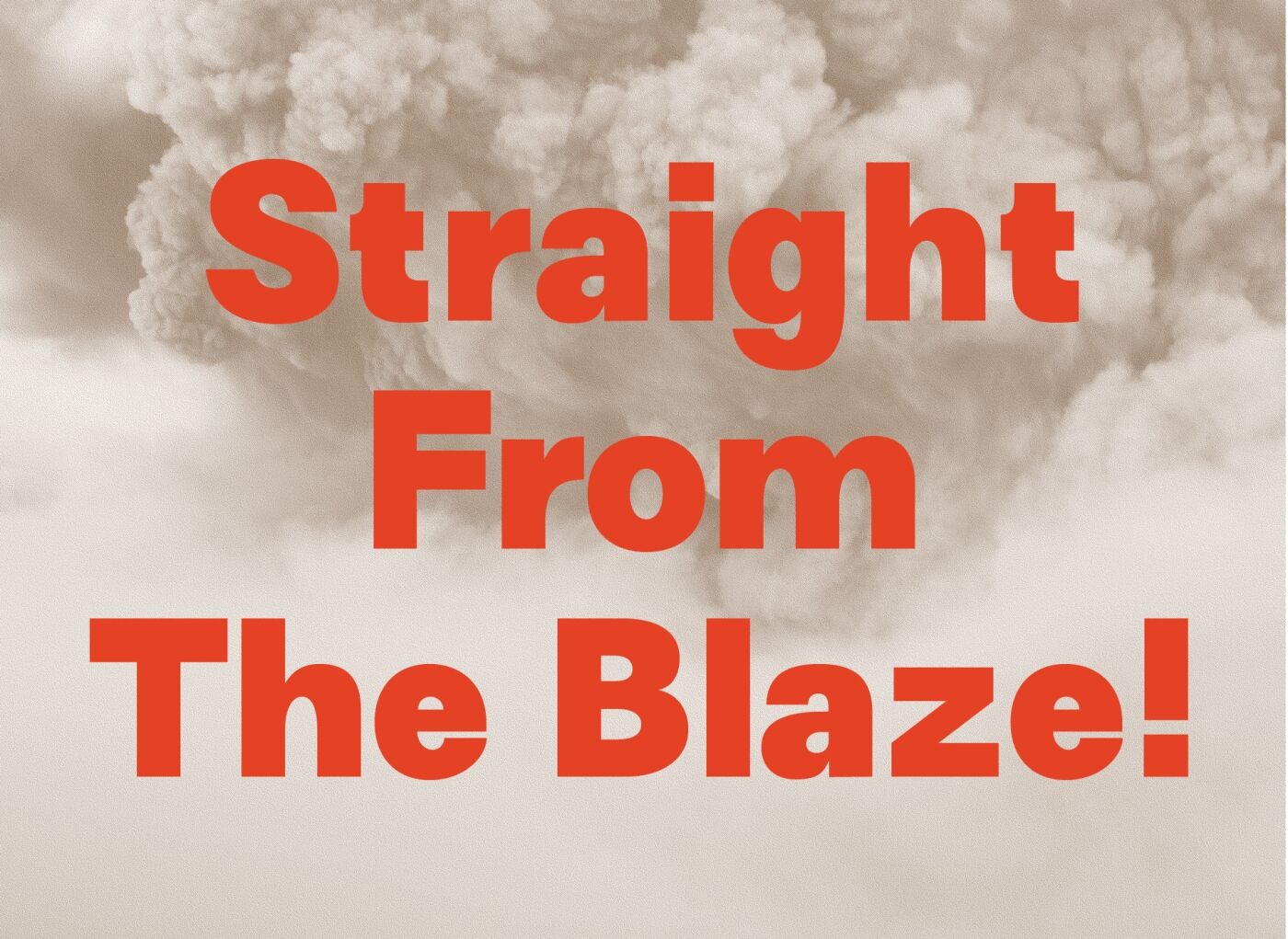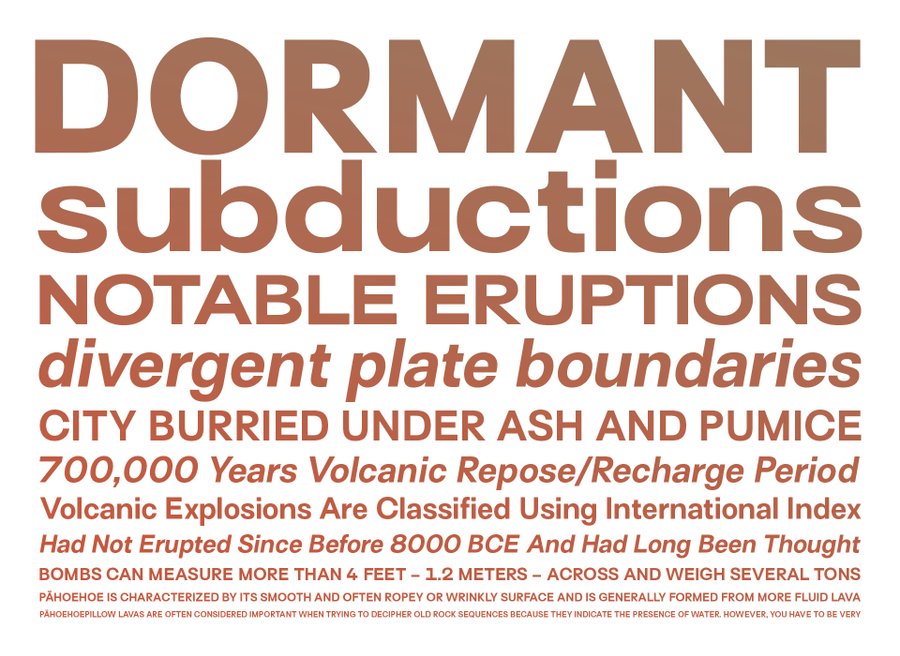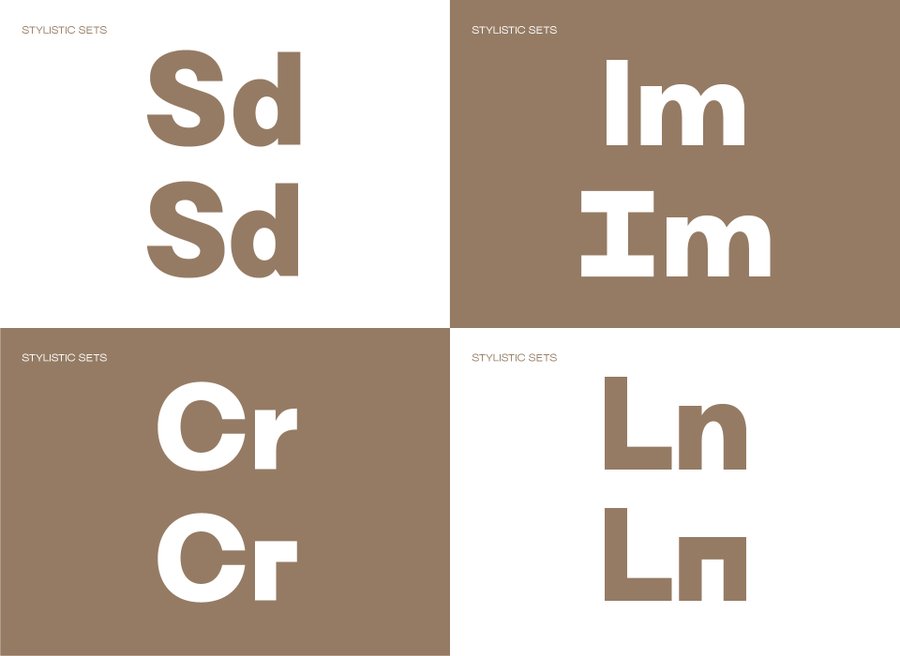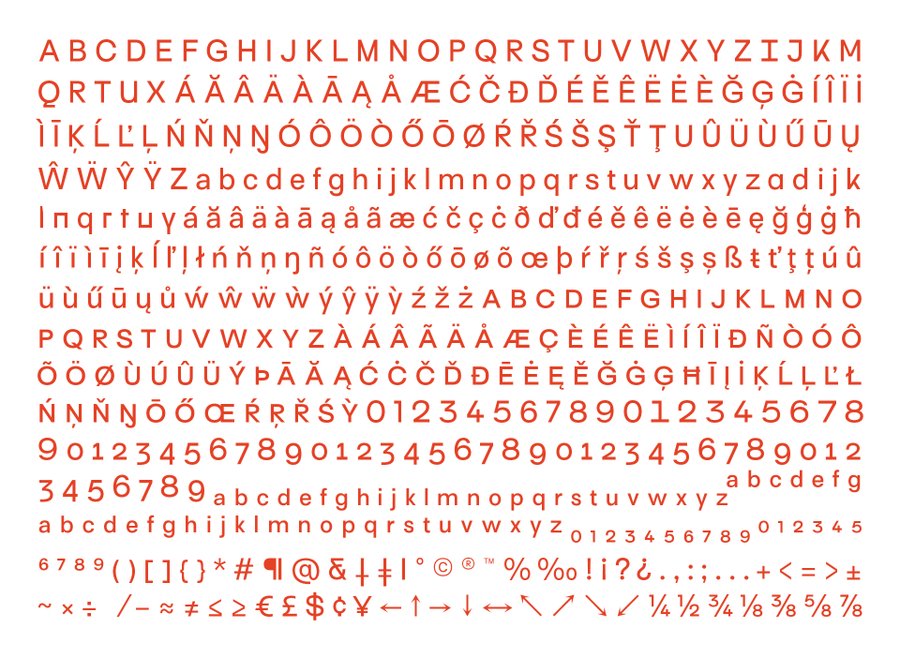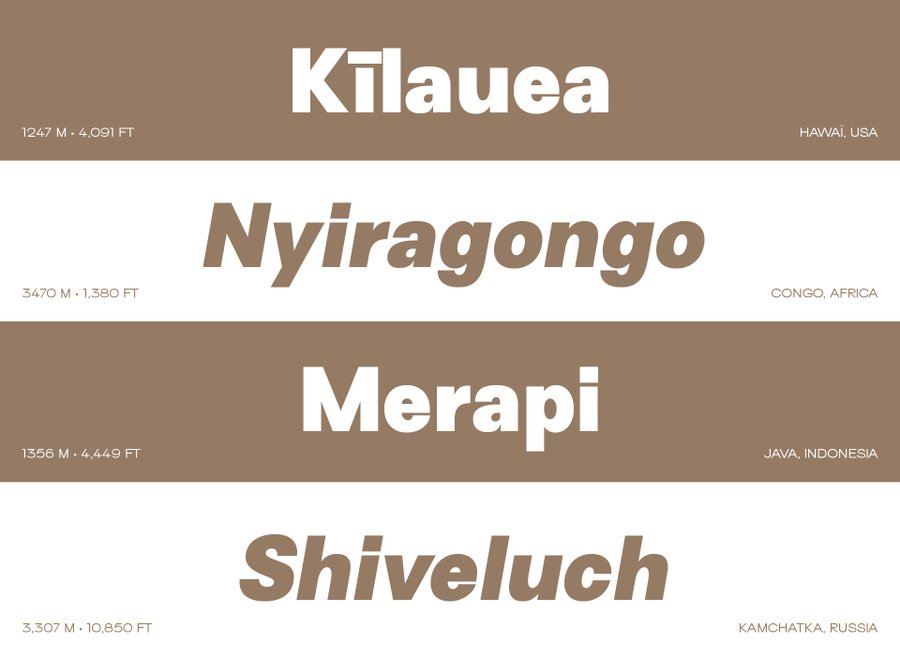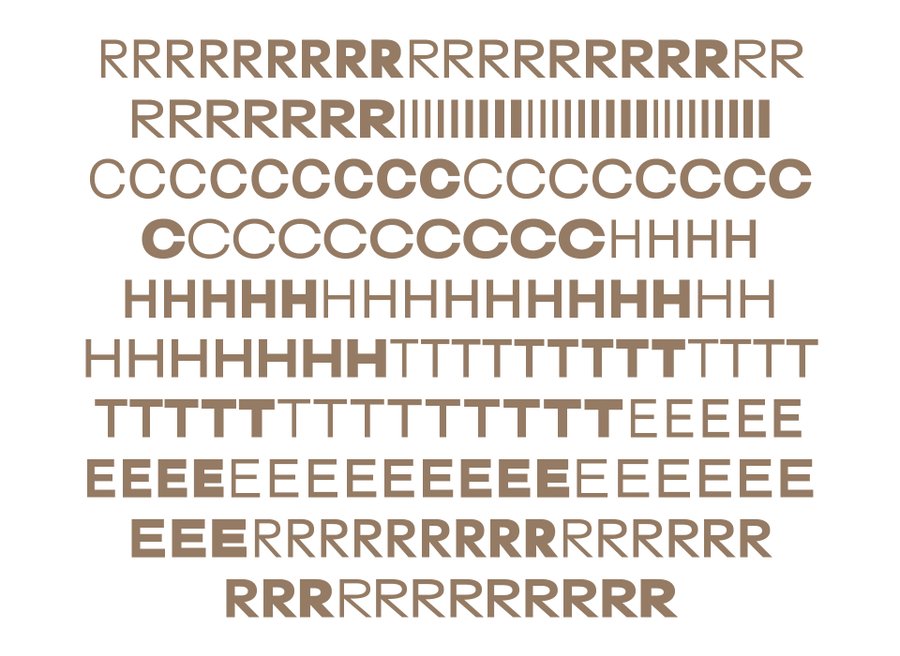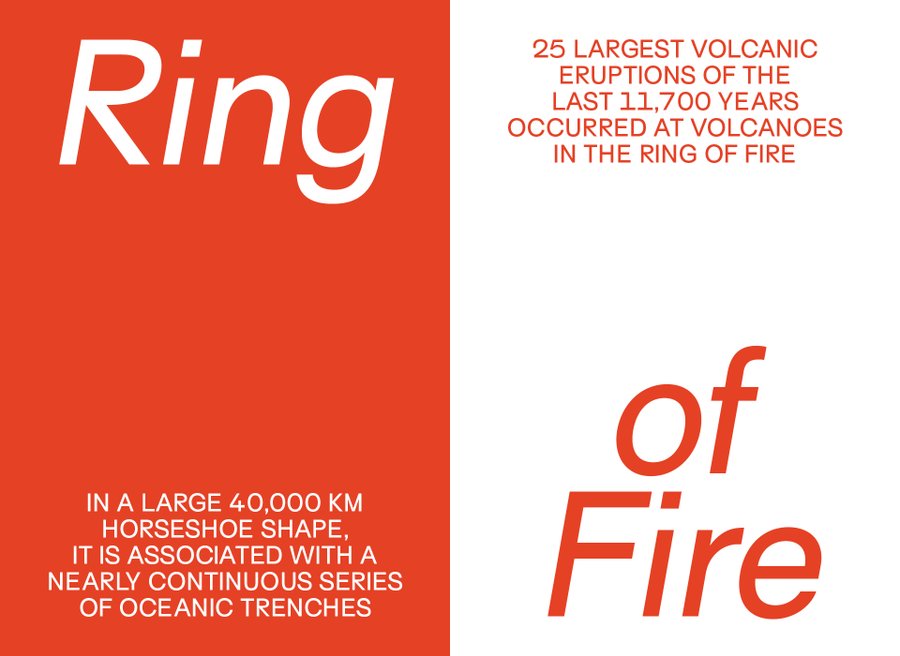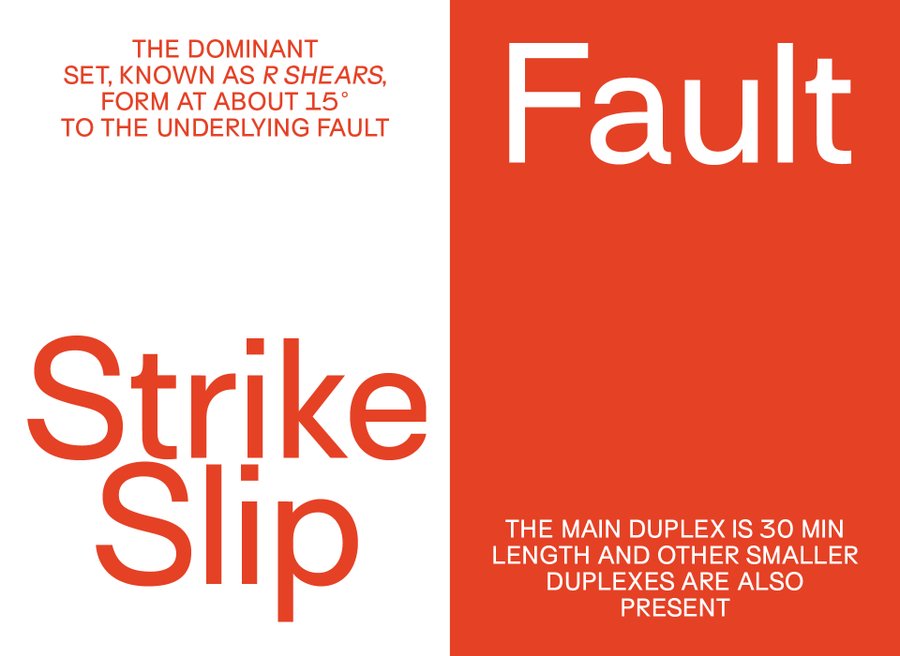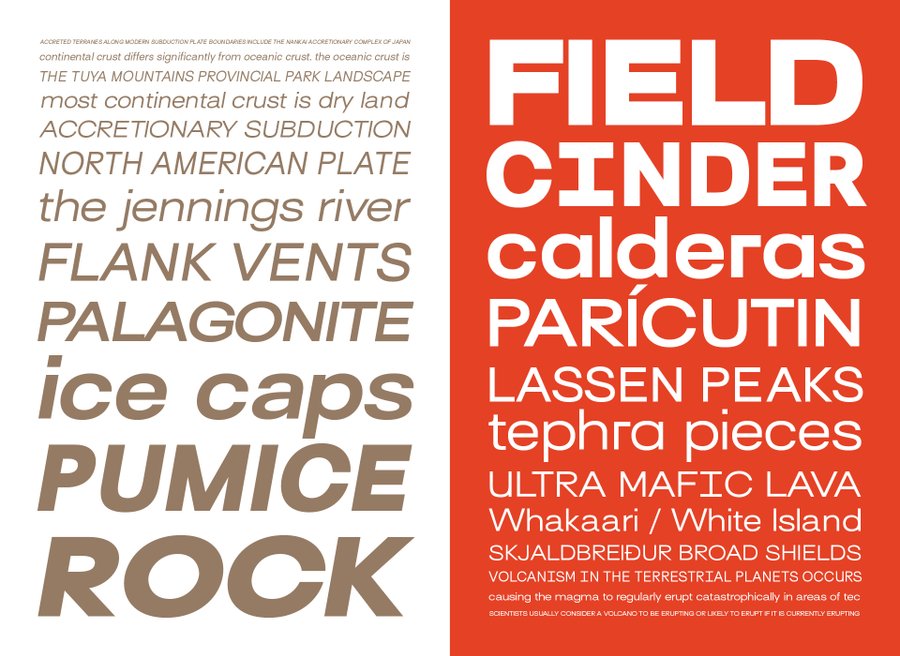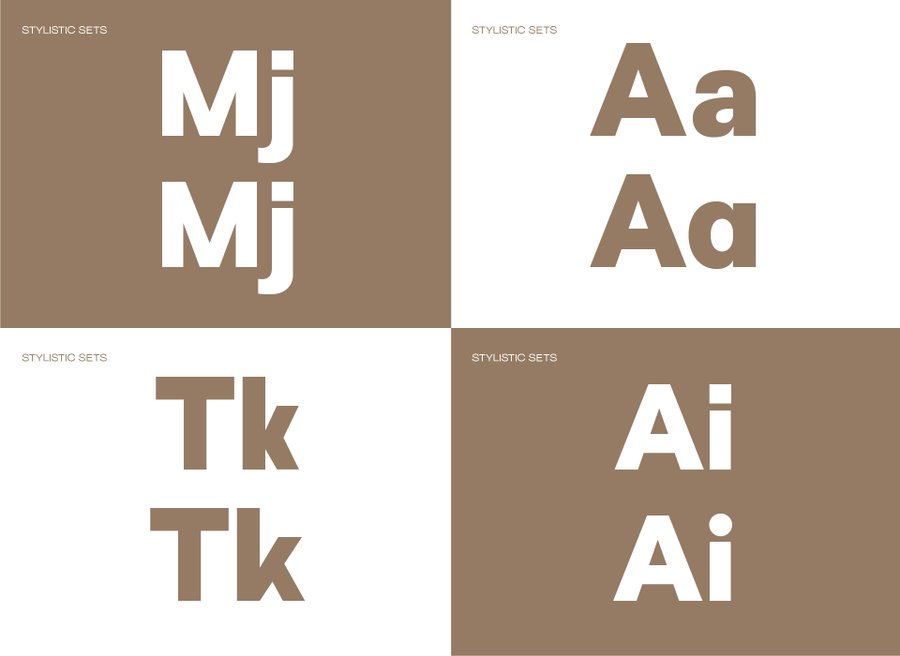
"Surt, the devil giant, the swarthy jötunn."
Surt, a Norse sans typeface Surt, the devil giant, the swarthy Jötunn. The destroyer of worlds, he whose flames will engulf the Earth—the leader of Múspell’s sons, riding to Ragnarök. This typeface family, inspired by Norse mythology and Scandiavian Architecture, draws a bridge between a geometric sans and a human process in the whole shape design. As such, each glyph has been designed based on a similar structure. Circles, ovals, rectangles and squares compose the basic ground on which the font is built…